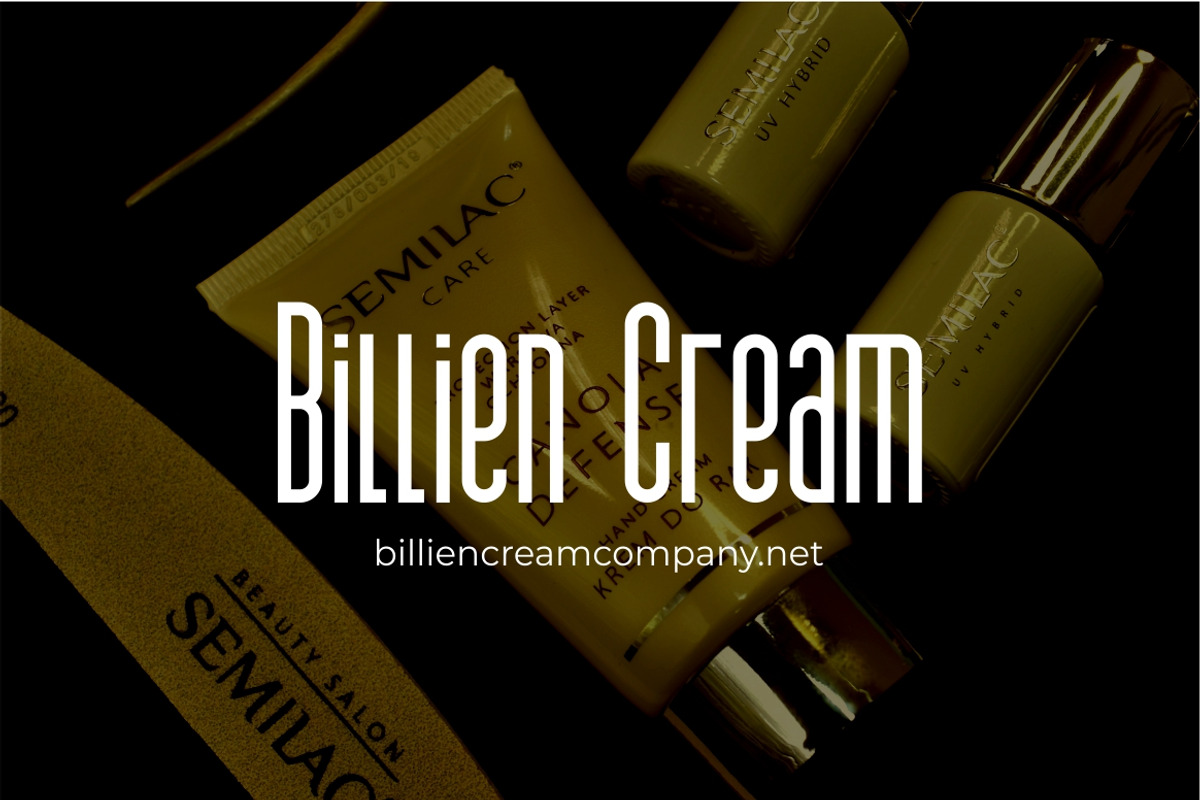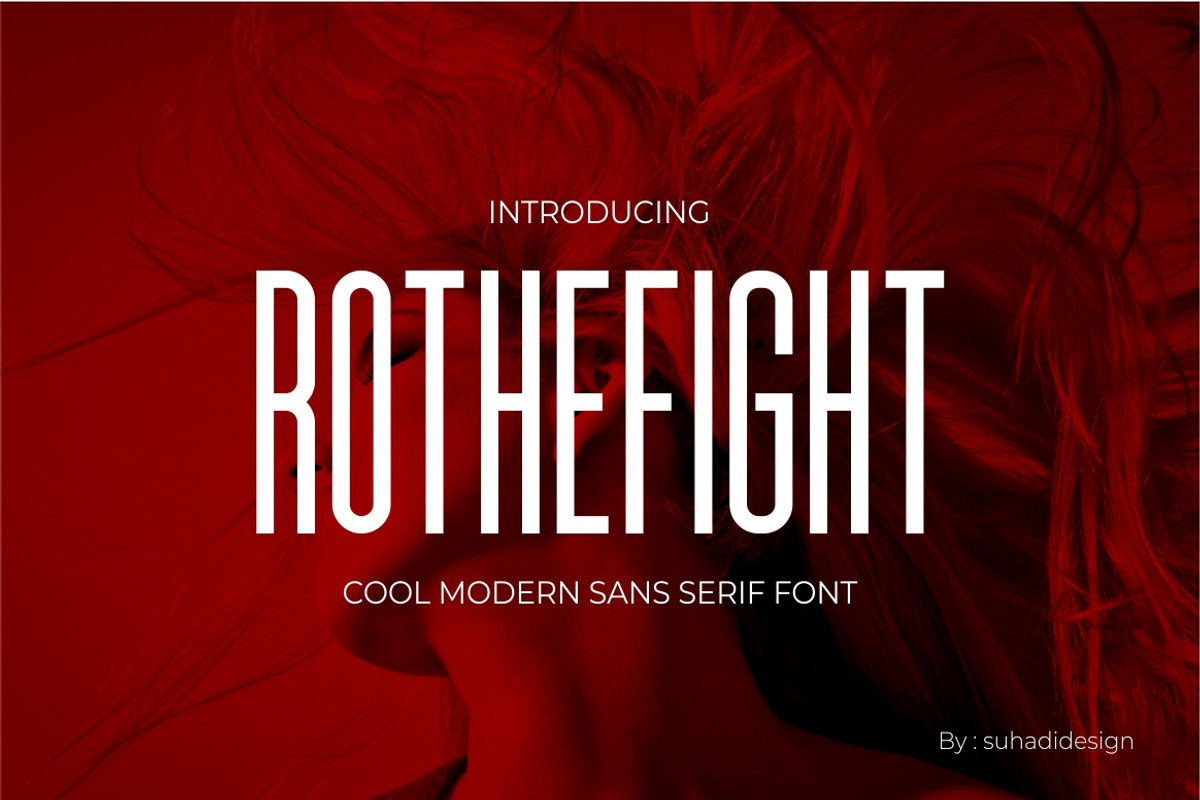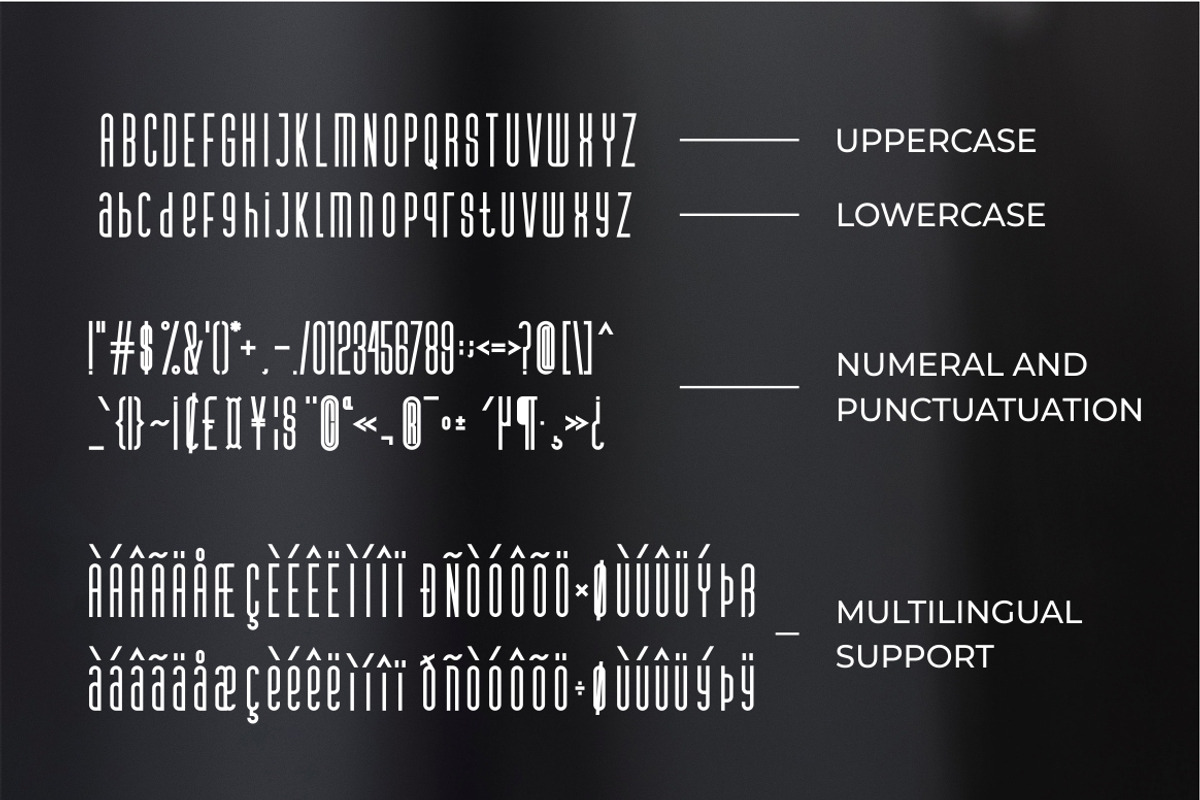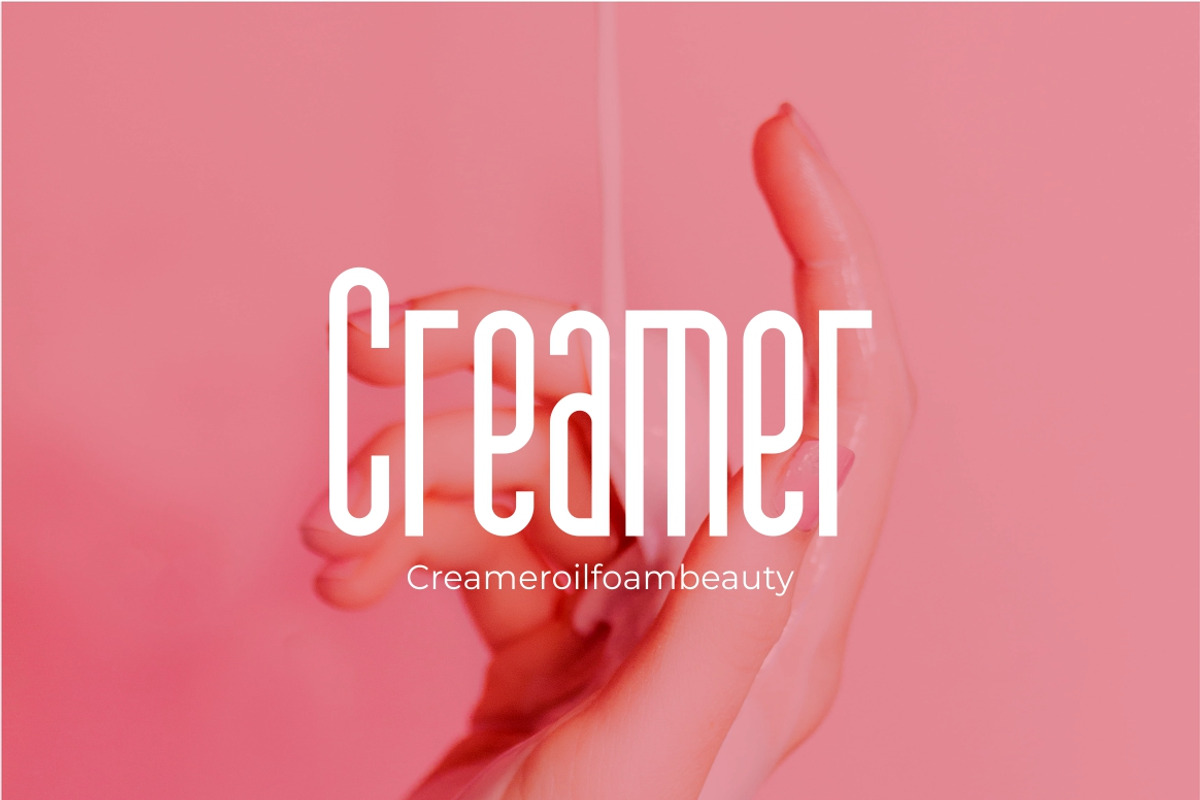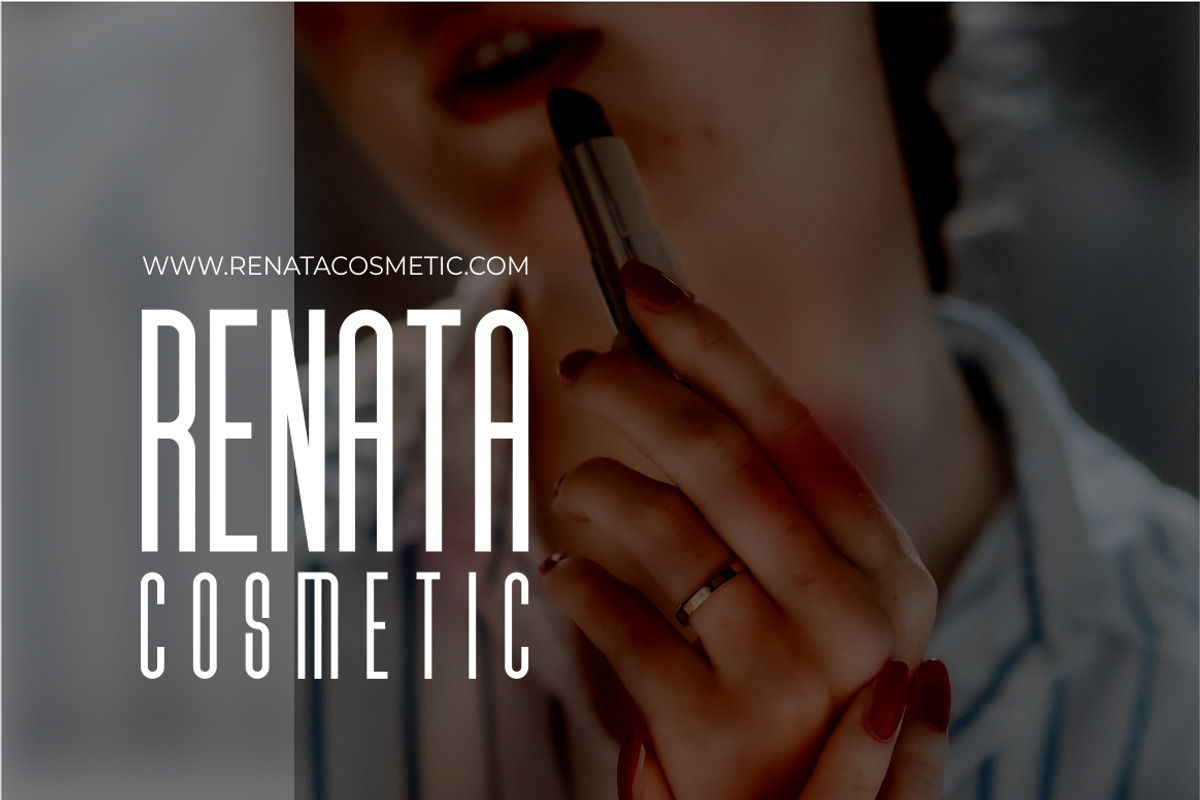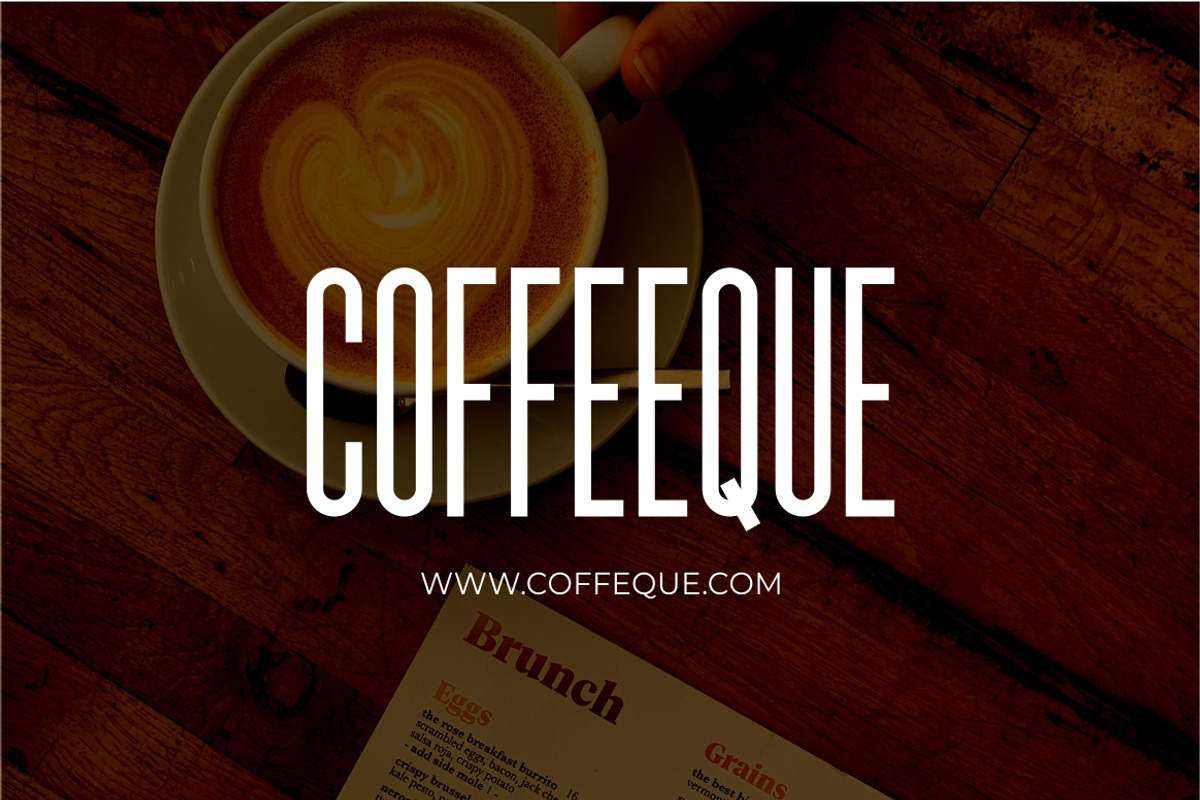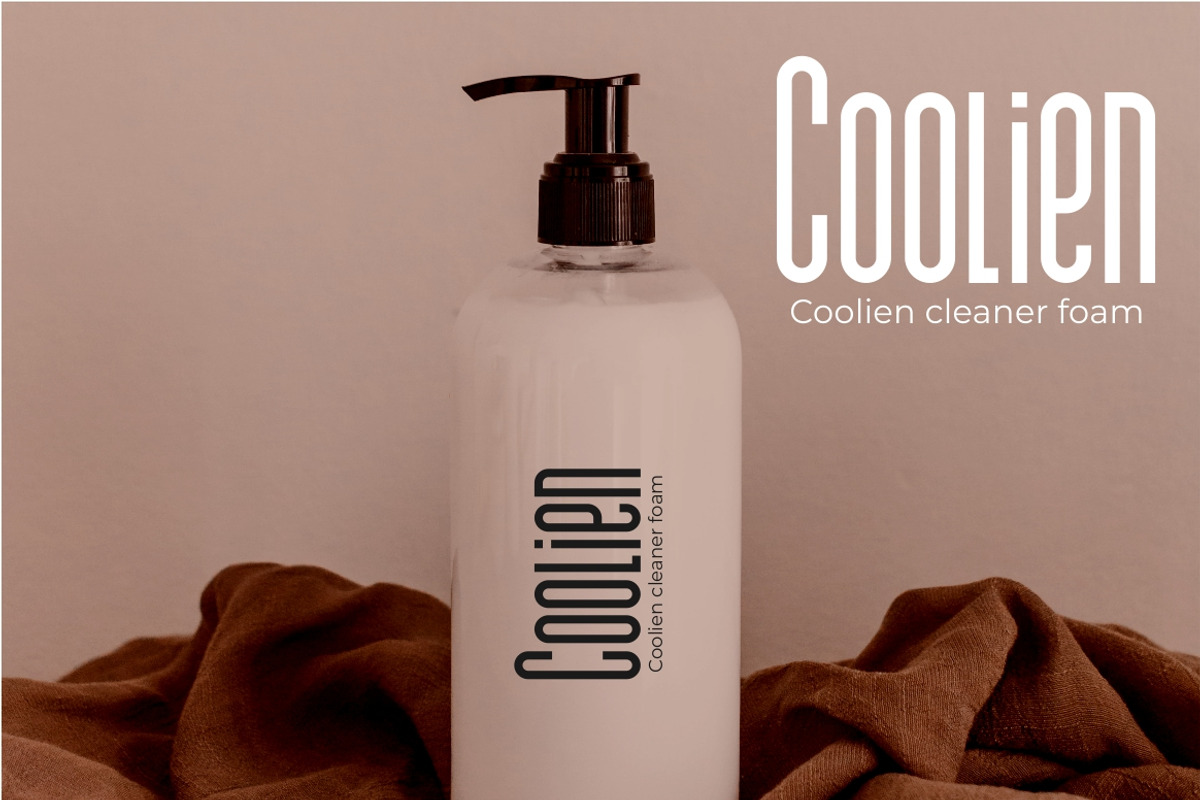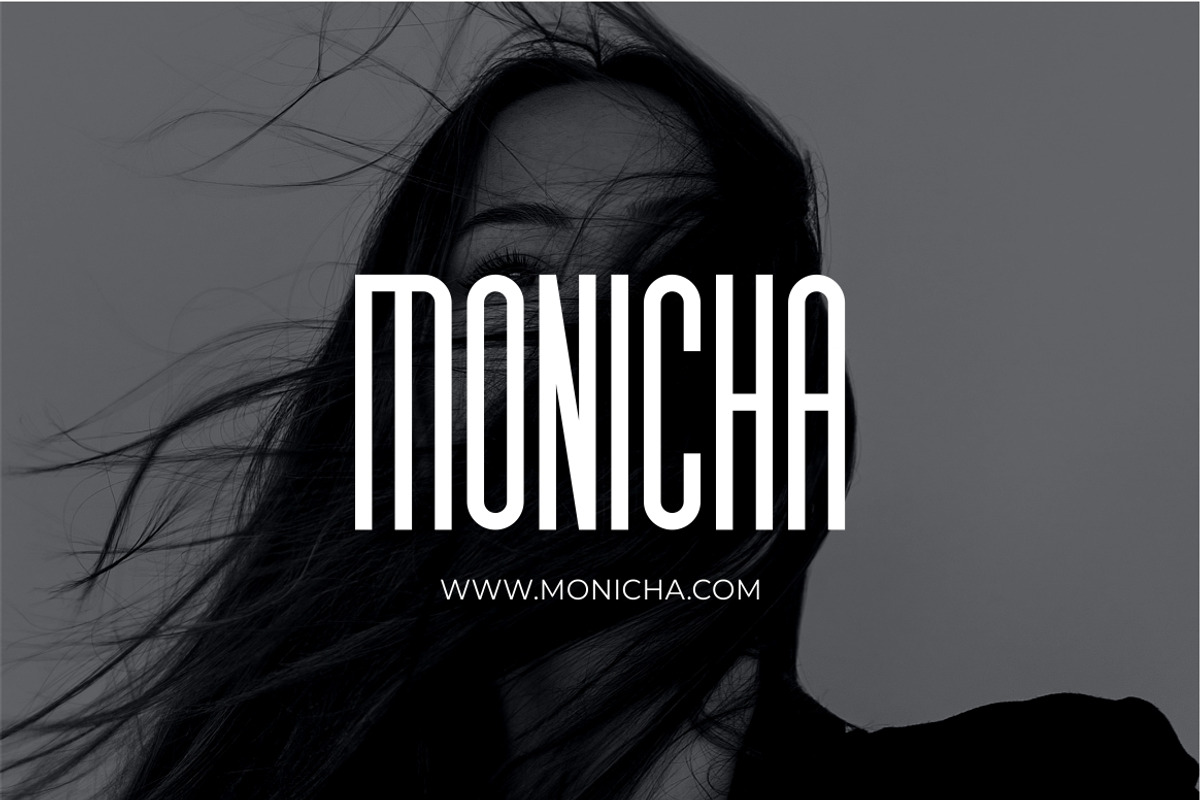
Rothefight branding sans serif font
Hi Ladies and Gentlemen! According to market demand, fonts tend to be modern, simple and trendy styles, so I decided to make this cool sans serif font that you have in mind. The Rothefight font is a modern sans serif font that is all the time and very popular, comes in a modern style hoping to become a favorite with the market. We keep this font looking elegant, classy, modern, stylish, modern, and easy to use. Rothefight Font is a great choice for brands, company names, fashion, logos, food menus, brand names, branding, brands, quotes, album covers, and other projects. Rothefight fonts are here to take your designs to the next level.
• Uppercase and lowercase letters • Multilingual support • Numeric and punctuation